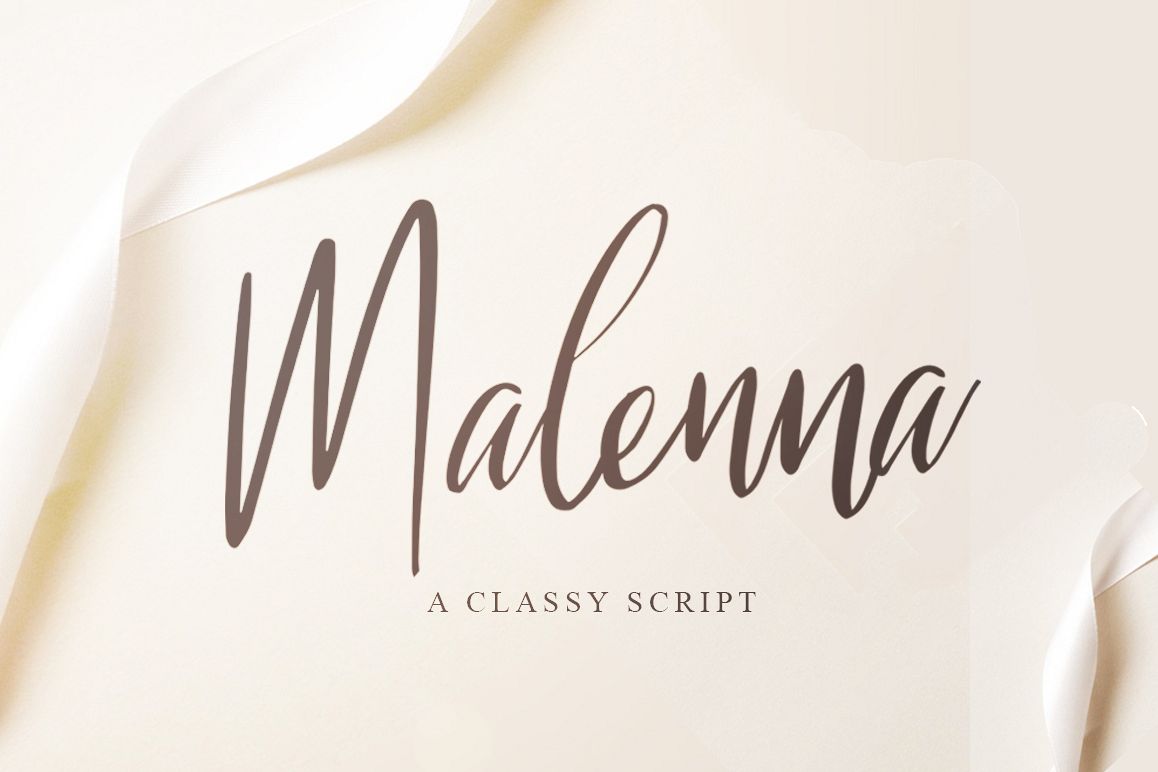
Malenna Script
Malenna-Regular
Introducing of our new product the name is Malenna Script Font. Inspired by signature and stylish handwriting, perfect for many different project such as logos & branding, invitation, stationery, wedding designs, social media posts, advertisements, product packaging, product designs, label, photography, watermark
- Basic Latin A-Z and a-z
- Numbers
- Symbols
- Opentype Feature
- PUA Encode